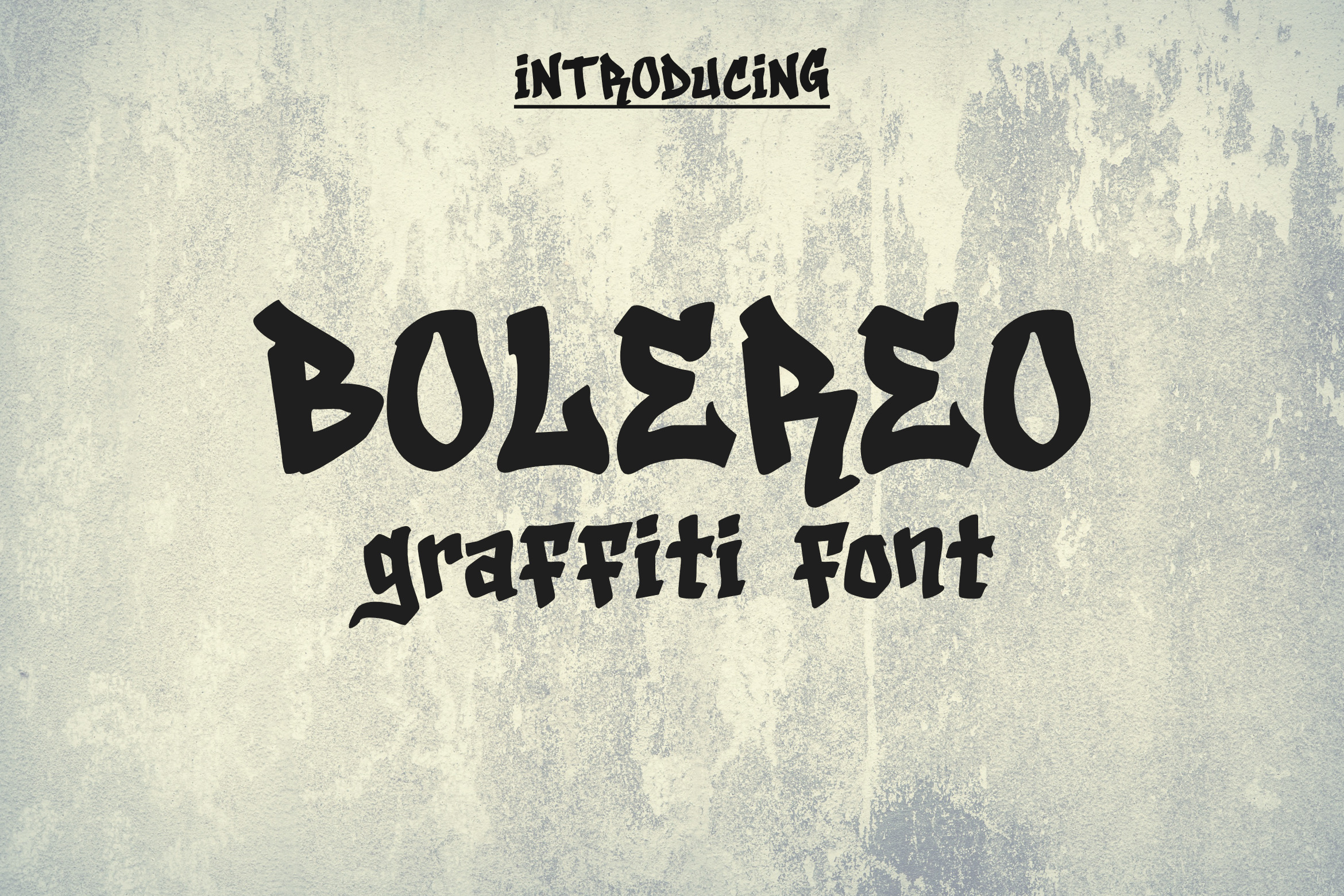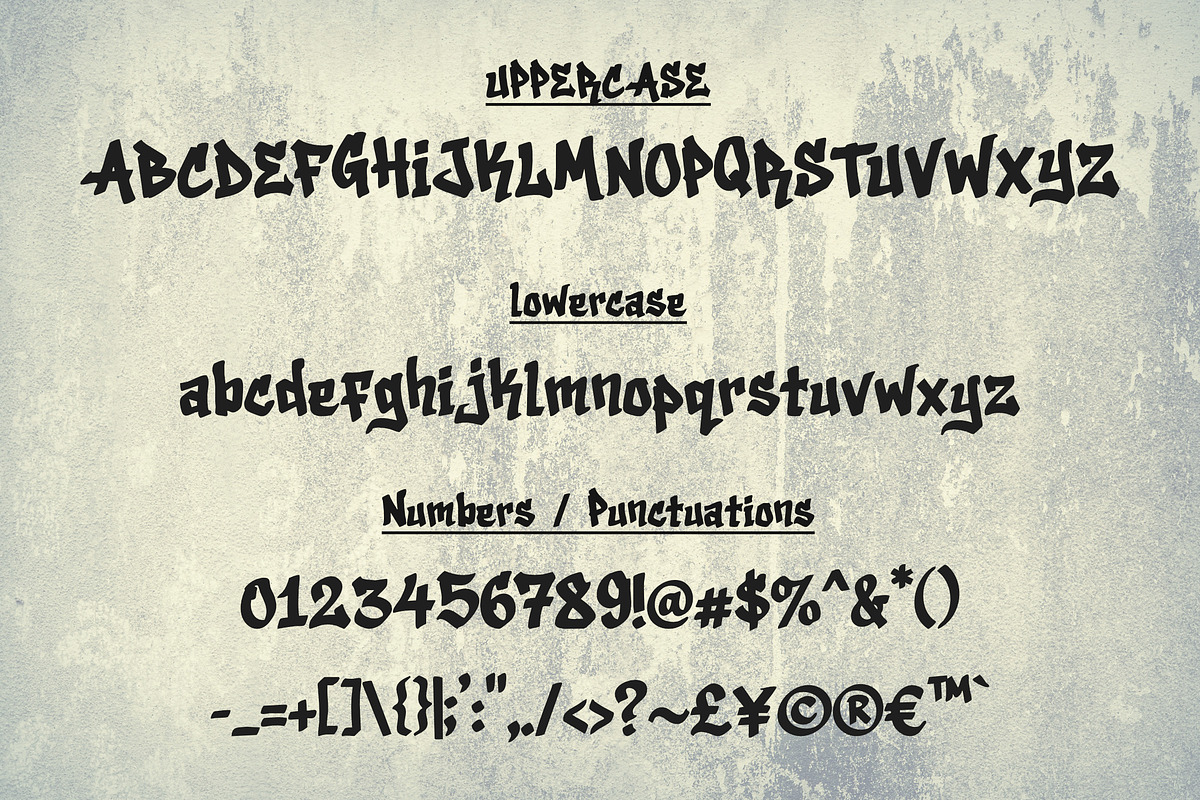
Bolereo Graffiti Font
Bring raw energy to your designs with Bolereo. Bolereo is a bold, authentic graffiti-style font designed to make your projects pop. With its edgy, hand-painted aesthetic, this display font is perfect for streetwear brands, urban-themed apparel, music posters, band merchandise, and eye-catching social media graphics. Whether you’re designing logos or creative typography, Bolereo delivers an unmistakable street-smart vibe that feels truly unique.
Character Set: Includes full Uppercase (Capitals) and Lowercase letters.
Extras: Numbers and essential punctuation symbols.
Technical: 108 total glyphs with Basic Latin (English) support.